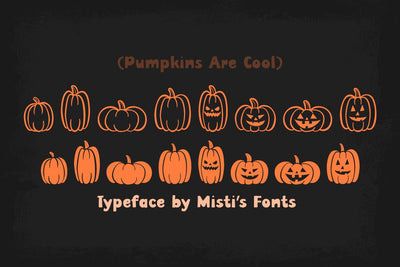
Pumpkins Are Cool
Pumpkins Are Cool is a playful Halloween-themed font packed with pumpkin shapes and jack-oβ-lantern faces. Perfect for spooky invitations, festive posters, party decor, and seasonal crafts. Bring autumn fun to your designs! π